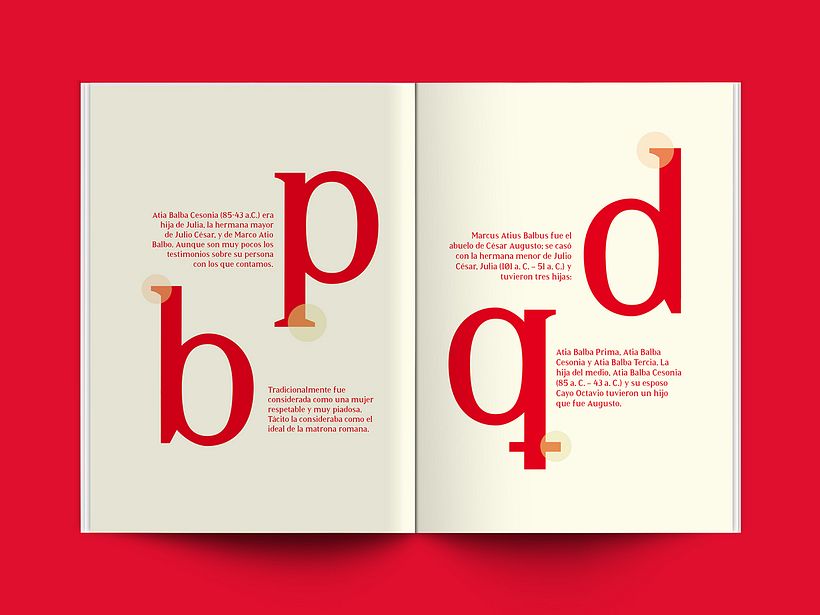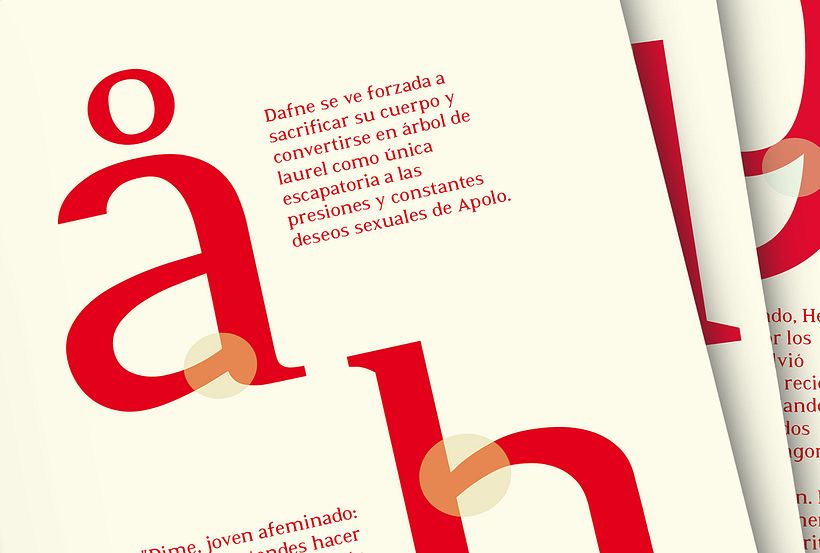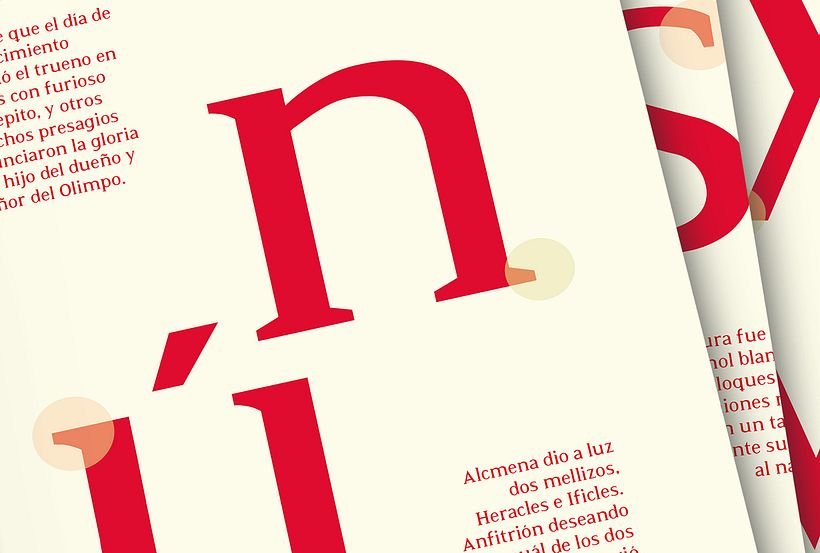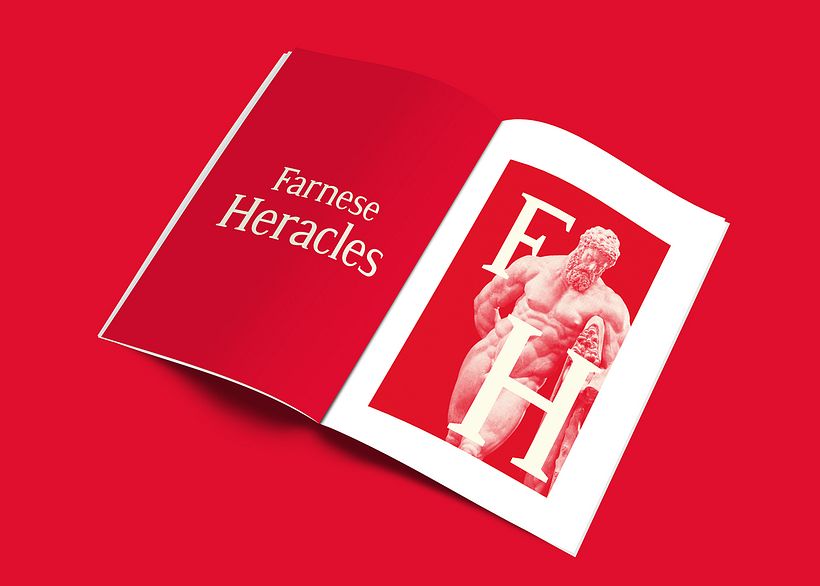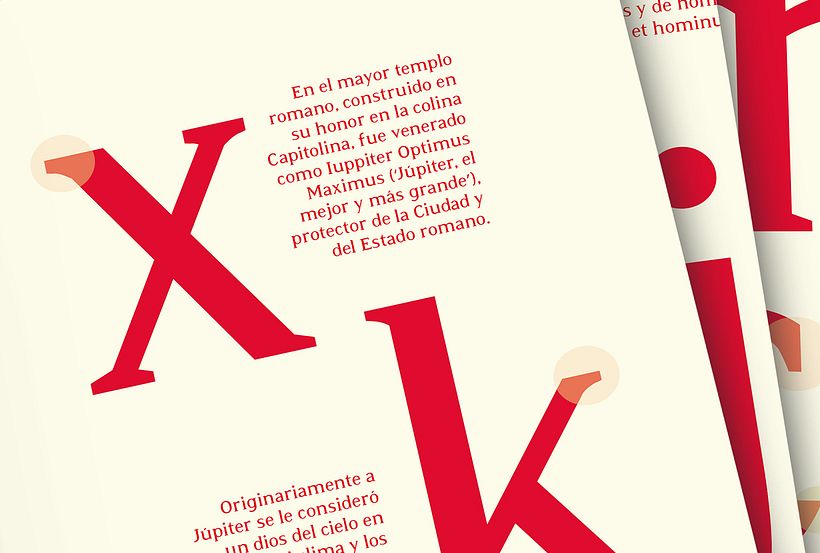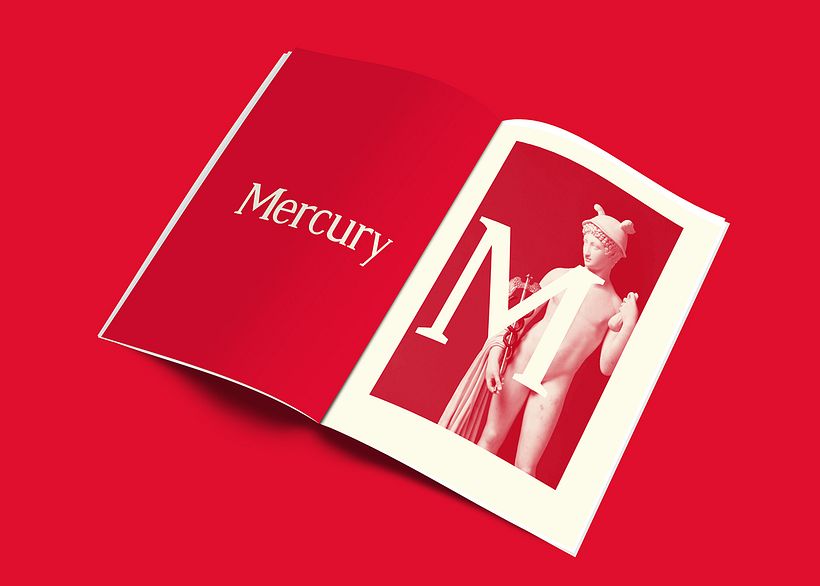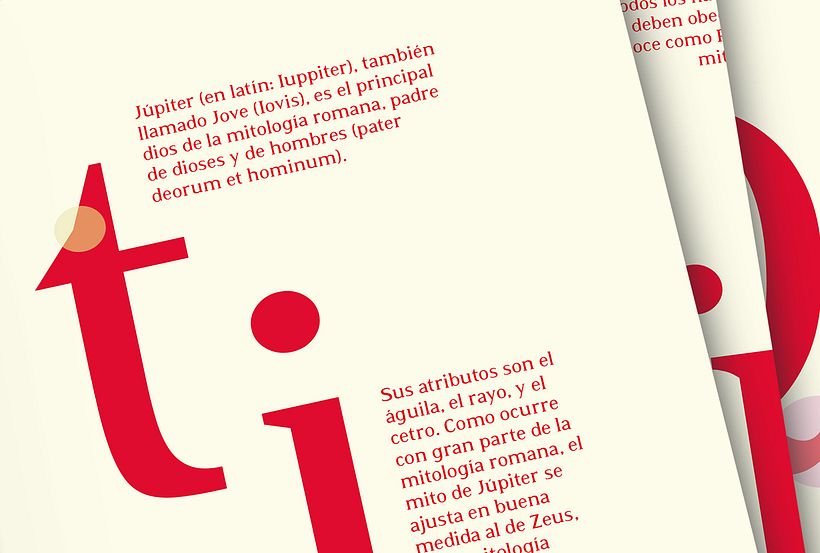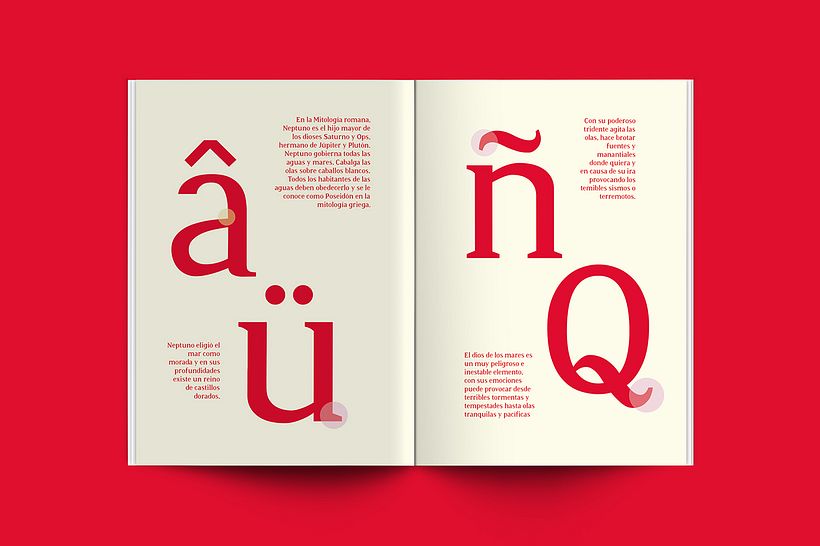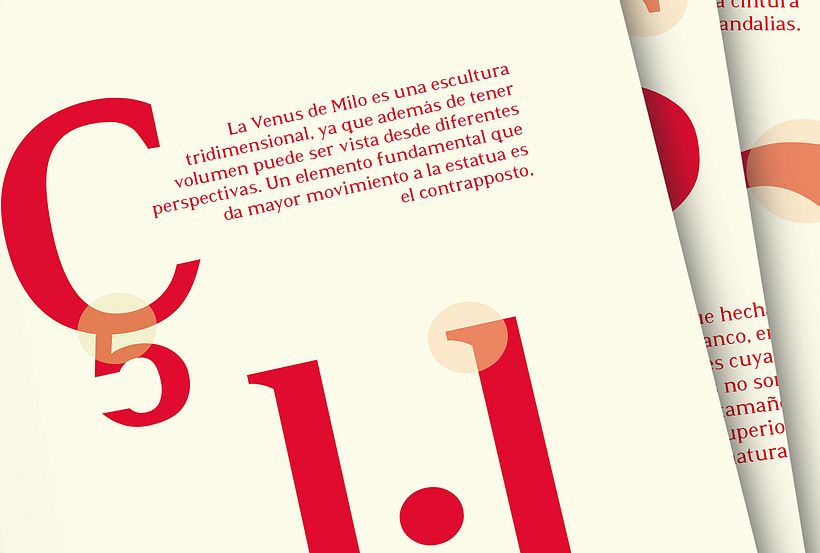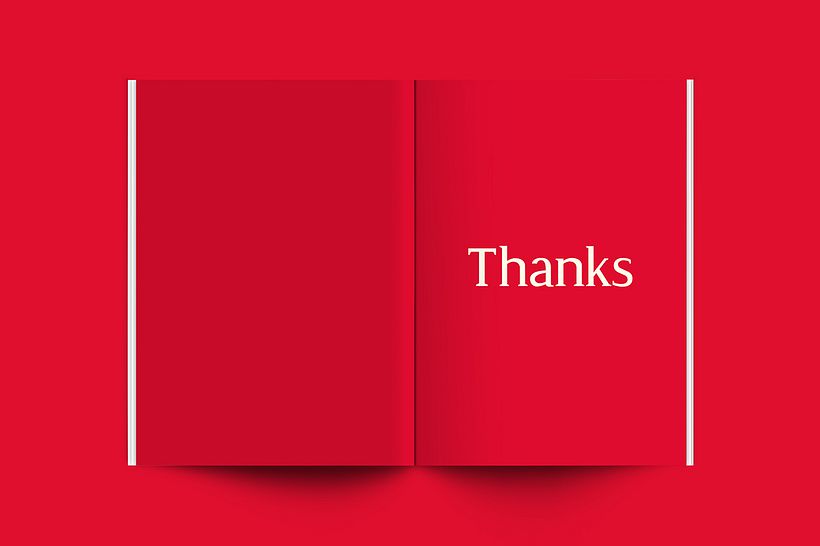
Atia - Font
Atia is a sophisticated serif typeface, with a touch of modernity and also a bit of contrast. The counter is opened enough to be readable in small bodies. It has been designed to make dyslexic people's lives easier thanks to its unique shapes.